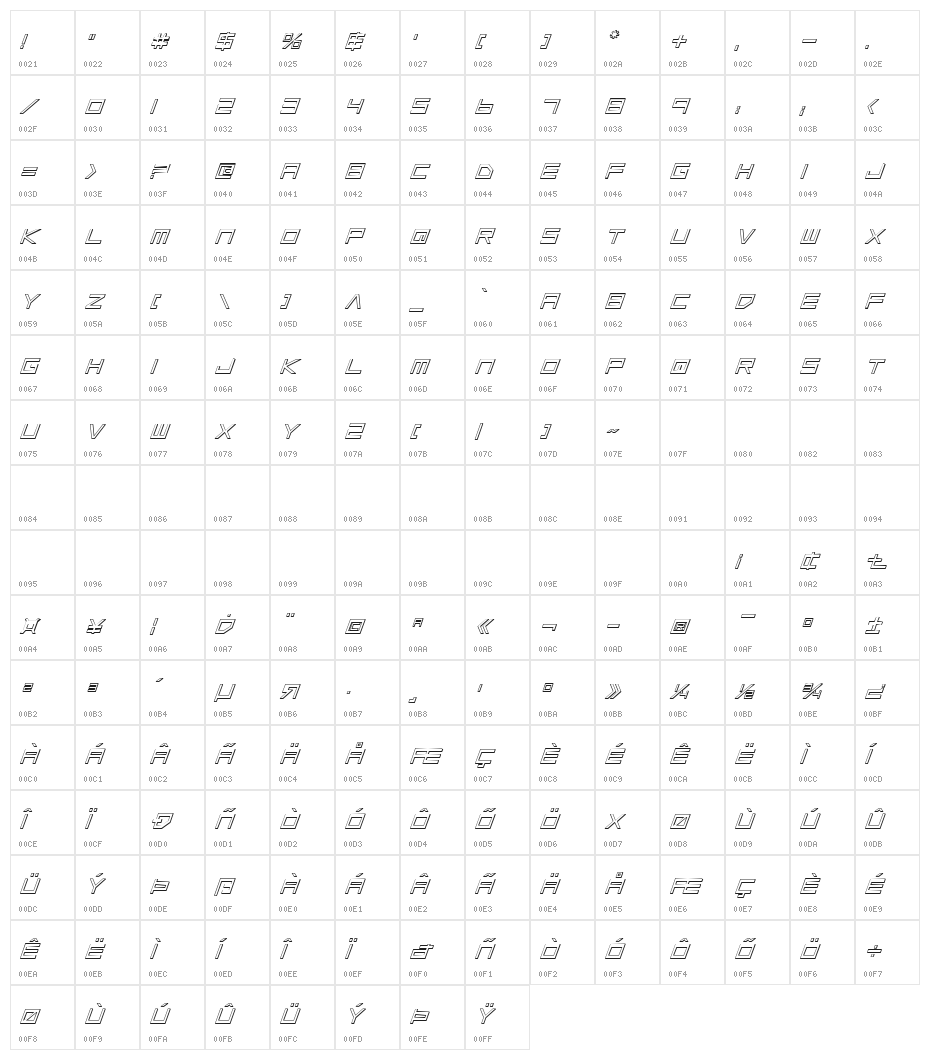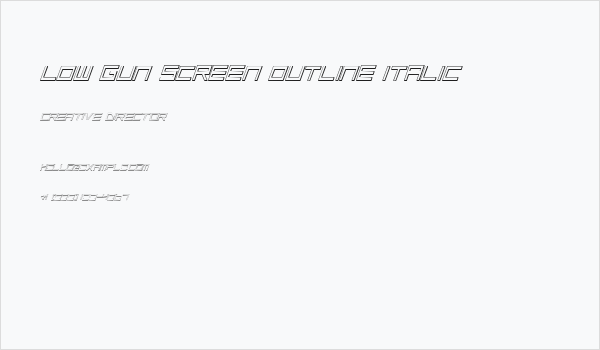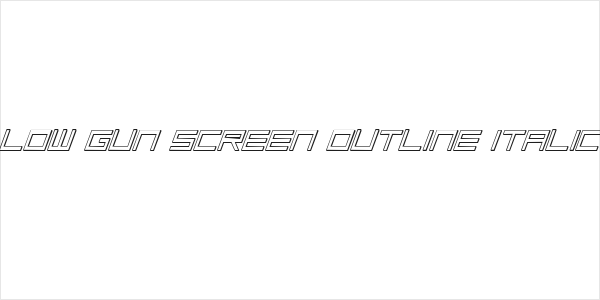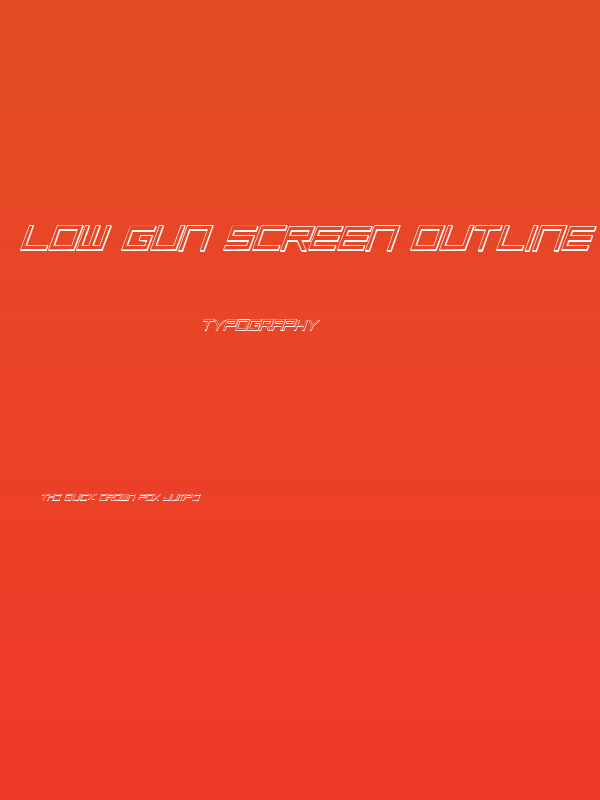
Low Gun Screen Outline Italic Font
Low Gun Screen Outline Italic Description
This font features a futuristic and geometric design with an outlined style that gives it a distinct, technical appearance. The characters are italicized, adding a dynamic and forward-leaning aspect to the text. Each letter is constructed with clean, straight lines and sharp angles, creating a sense of precision and modernity. The uppercase and lowercase letters maintain a consistent style, with the same angular and outlined characteristics. Numbers and special characters are designed to match the overall aesthetic, ensuring uniformity across all glyphs. The font's outlined nature makes it stand out, suitable for projects that require a bold and eye-catching typeface.
| Proposed Projects | Ideal for technology branding, sci-fi themed designs, video game interfaces, and modern posters. |